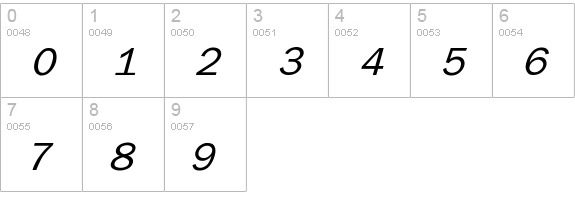
BillilinGothic Italic is a distinctive, italic variant in the BillilinGothic typeface family \xE2\x80\x94 well suited to design and typography projects.
BillilinGothic Italic font is a stylish and contemporary typeface that exudes sophistication and elegance. Its sleek and slanted design adds a touch of flair to any project, making it perfect for branding, advertising, and design work. The italicized characters give a sense of movement and dynamism, making text appear more engaging and visually appealing. What sets BillilinGothic Italic font apart is that it is available for free download at FontsMarket.com. This means that you can easily access and use this high-quality font without any cost, making it a valuable addition to your font collection. Whether you're a designer looking to elevate your creations or a business owner seeking a modern and eye-catching font for your branding, BillilinGothic Italic font is a fantastic choice that won't break the bank. Download it today and see how it can enhance your projects with its unique style and versatility.